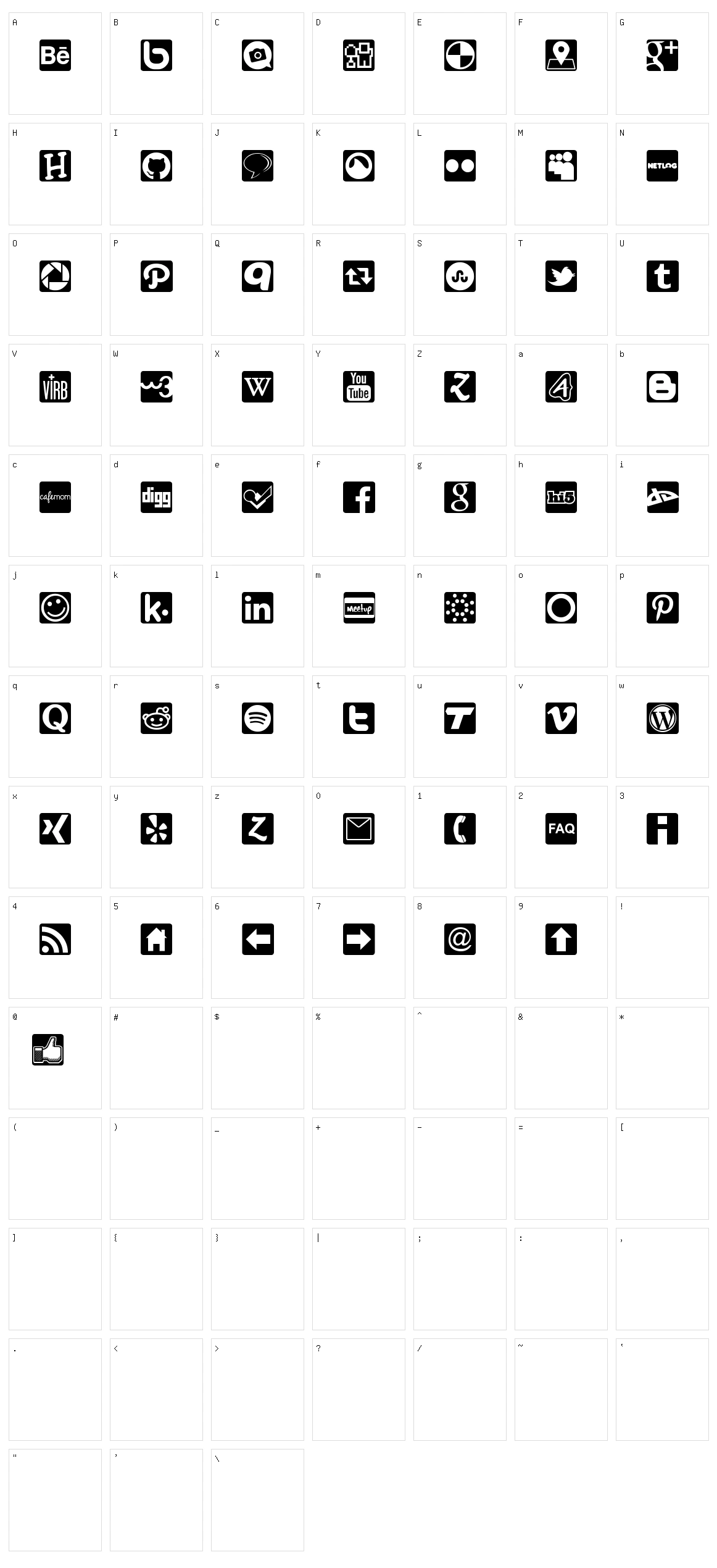
Social Icons Pro Set 1 - Rounded
0 - Email
1 - Phone
2 - FAQ
3 - Information
4 - RSS
5 - Home
6 - Left Arrow
7 - Right Arrow
8 - @ symbol
9 - Up arrow
@ - Like button
A - Behance
B - Bebo
C - Daily Booth
D - Digg
E - Delicious
F - Facebook Locations
G - Google+
H - Hyves
I - GitHub
J - Google Talk
K - Grooveshark
L - Flickr
M - MySpace
N - Netlog
O - Picassa
P - Pinterest
Q - Quora
R - Retweet
S - StumbleUpon
T - Twitter
U - Tumblr
V - Virb
W - w3
X - Wikipedia
Y - YouTube
Z - ZooTool
a - Arto
b - Blogger
c - CafeMom
d - Digg
e - FourSquare
f - Facebook
g - Google
h - hi5
i - Deviant Art
j - Friendster
k - Kik
l - LinkedIn
m - Meetup
n - Ning
o - Orkut
p - Pinterest
q - Quora
r - Reddit
s - Spotify
t - twitter
u - Tagged
v - Vimeo
w - WordPress
x - Xing
y - Yelp